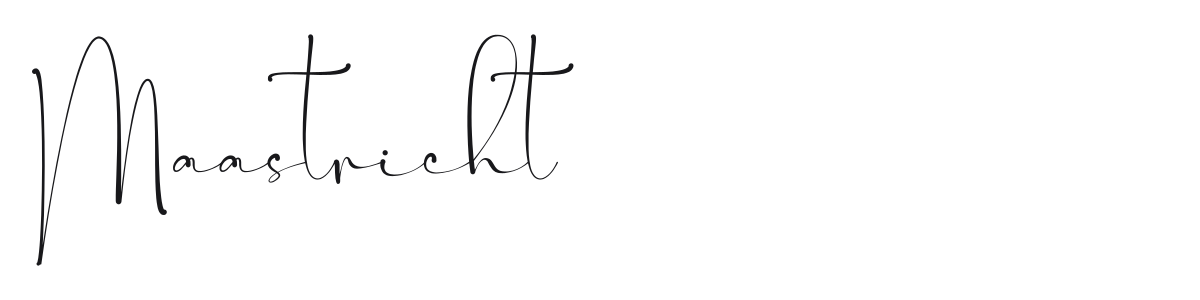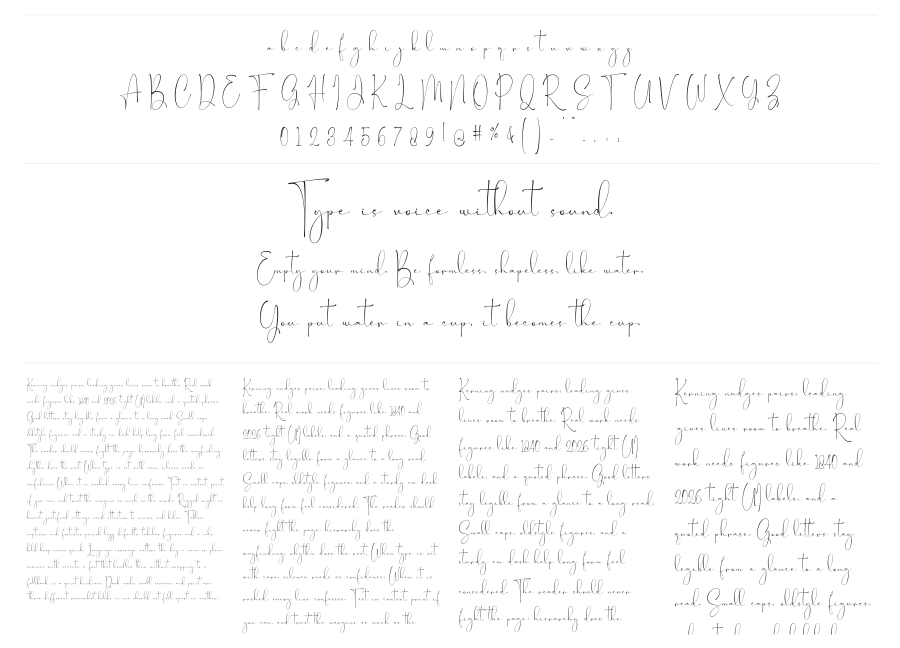
Maastricht
Maastricht is a hairline formal script with long looping ascenders and fluid connections drawn from copperplate calligraphic tradition. The near-monoweight strokes keep it light and airy, making it feel modern rather than stuffy. It thrives on wedding stationery, branding, and any context that calls for understated elegance.